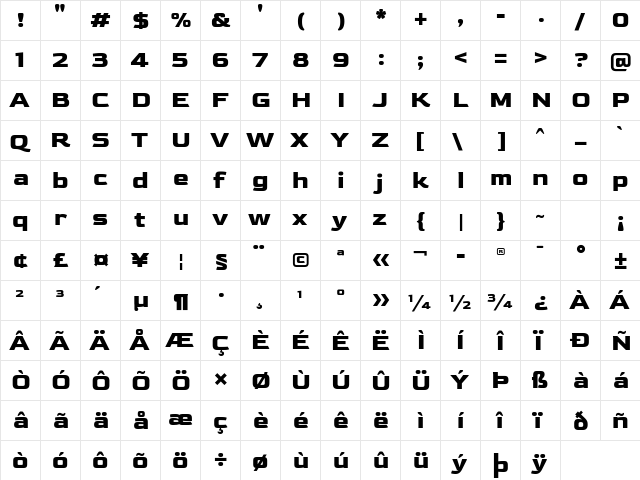
Gold Bold Font Preview
Gold Bold
Gold Bold Font Details
| Designer | jaiki |
Design Context for Gold Typeface
Gold takes a measured approach to typography — its balanced proportions and neutral character make it a reliable workhorse for both digital and print work. Its bold stroke weight gives it real presence on the page.